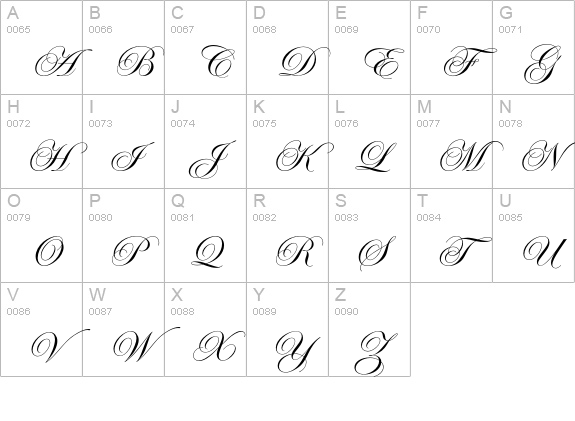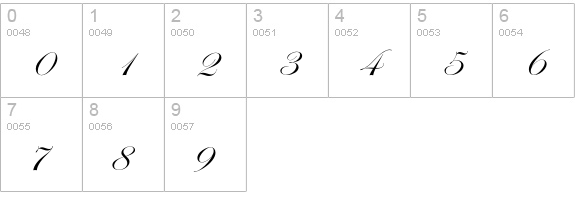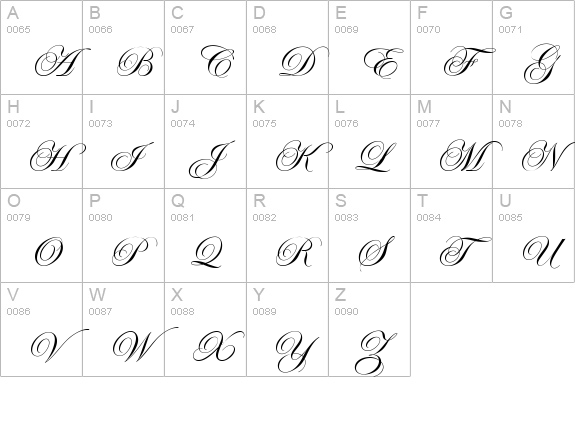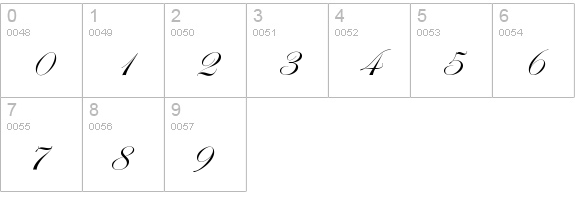
EdwardianScriptEF-Regular is the standard, neutral variant in the EdwardianScriptEF typeface family \xE2\x80\x94 well suited to general body text, paragraphs, and standard typographic work.
EdwardianScriptEF-Regular is a timeless and elegant font that captures the essence of the Edwardian era with its intricate and delicate letterforms. This exquisite script font is perfect for adding a touch of sophistication and refinement to any design project. With its graceful curves and intricate details, EdwardianScriptEF-Regular exudes a sense of luxury and class. Its flowing script style and ornate flourishes make it ideal for creating elegant wedding invitations, sophisticated logos, and refined branding materials. What makes EdwardianScriptEF-Regular even more desirable is that it is freely available to download at FontsMarket.com. This means that designers and enthusiasts alike can easily access this stunning font and incorporate it into their creative endeavors without any cost. Whether you are creating a vintage-inspired design, a formal event invitation, or a high-end brand identity, EdwardianScriptEF-Regular is the perfect choice. Its timeless appeal and effortless beauty will elevate any project to new heights of elegance and refinement. So, why wait? Download EdwardianScriptEF-Regular now from FontsMarket.com and let your creativity flourish.